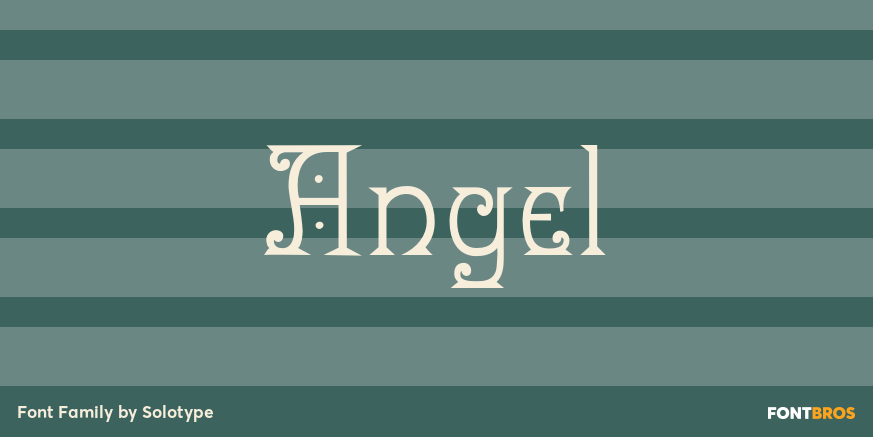
HomeFont BrosHistoricalAngel HistoricalSpecial Effect Angel FacebookXPinterestWhatsApp 1 of 1 About Angel Victorian fonts are a delight to use, but many don  DOWNLOAD NOW People also explored Bubbles Fluffy Flamingo Font loveline Scary Boy Font Athabasca Font Apple Pie Font Minigap Font School Subject Font Alaycia 212 0 TagsAngelAngel Font Previous articleCharlizeNext articleAmaboxi LEAVE A REPLY Cancel reply Comment: Please enter your comment! Name:* Please enter your name here Email:* You have entered an incorrect email address! Please enter your email address here Website: Save my name, email, and website in this browser for the next time I comment. Personal Use Free Kitsor Rauttie Personal Use Free Read more about this font Shrag Script Personal Use Free Read more about this font True Love Personal Use Free Read more about this font Peachy Rose Personal Use Free Read more about this font BLOG Top 7 Google Fonts Alternatives for Faster and Privacy-Friendly Web Design (2025) Top 7 Google Fonts Alternatives for Faster and Privacy-Friendly Web Design (2025) When it comes to web typography, Google Fonts has long been the go-to... Best Fonts for YouTube Videos: Make Your Thumbnails Stand Out Top 10 Handwritten Fonts That Elevate Your Designs Using Fonts in Digital Marketing: Tips to Strengthen Your Brand Identity